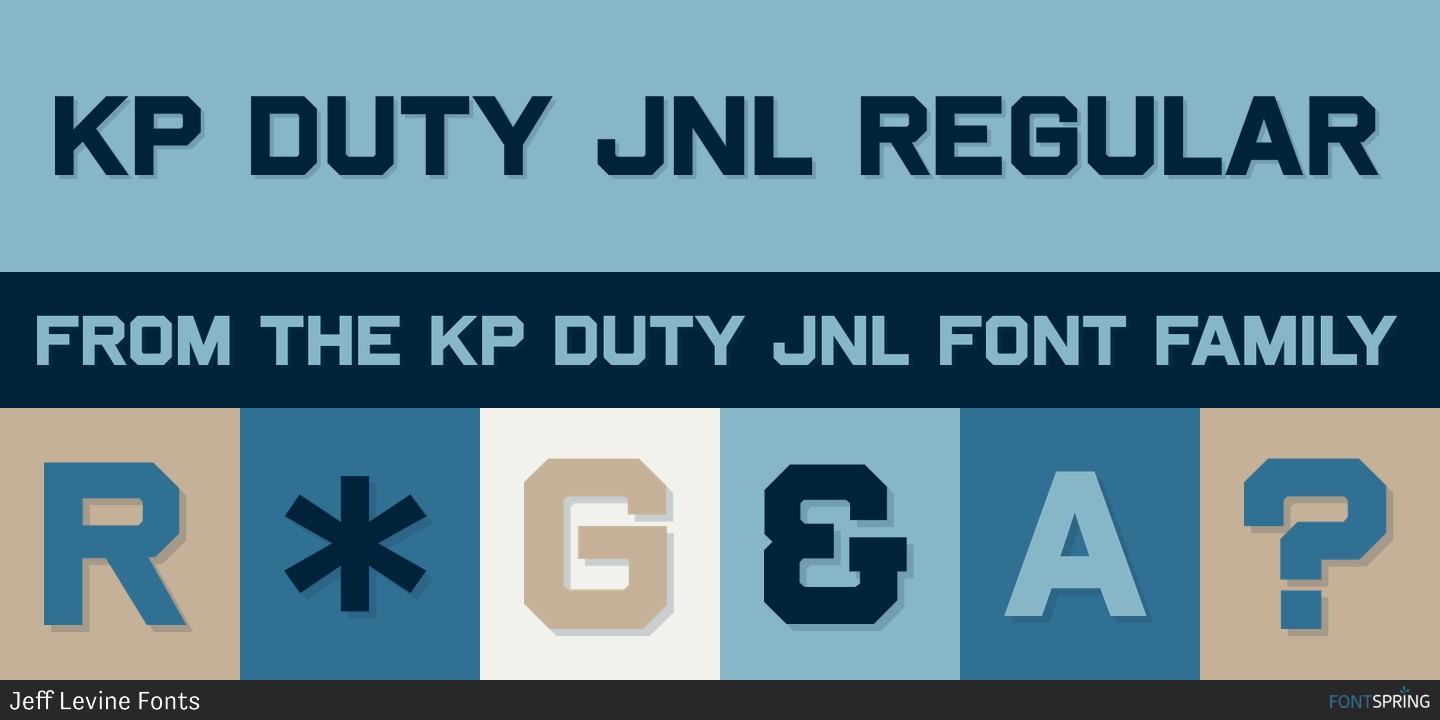
KP Duty JNL Font
KP Duty JNL Font is perfect for military-themed gaming, vintage war movie titles, historical military museums, tactical equipment branding, army surplus stores, military training materials, veteran organization communications, defense contractor presentations, patriotic event promotions, and authentic military heritage displays.
KP Duty JNL Font creates excitement because it embodies the disciplined strength and military precision of armed forces tradition with its structured letterforms and duty-inspired character design. The font's regimented proportions and military aesthetic instantly convey honor and service dedication, making any brand appear disciplined and authentically military. Its carefully crafted service details and duty-bound character create an immediate sense of military honor that captivates audiences seeking authentic military experiences, service excellence, and products that celebrate the transformative power of military duty and patriotic service.
The KP Duty JNL Font family includes multiple weights and styles: Regular, Bold, Light, Medium, Italic, Condensed, Extended, Tactical, Military, and Service versions. Each variant maintains the font's signature military character while offering different levels of tactical styling and service authenticity suitable for various military and patriotic applications.